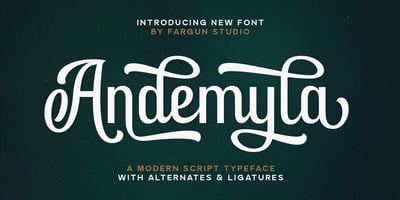
Andemyla Script
Andemyla Script font
Andemyla Script Font Family was designed by Fajar Gunawan and published by Fargun Studio. Andemyla Script contains 2 styles and family package options. Andemyla Script – A new fresh and modern script font with decorative characters and a dancing baseline. So beautiful on invitation like handicraft, greeting cards, branding materials, business cards, quotes, posters, and more design concepts.